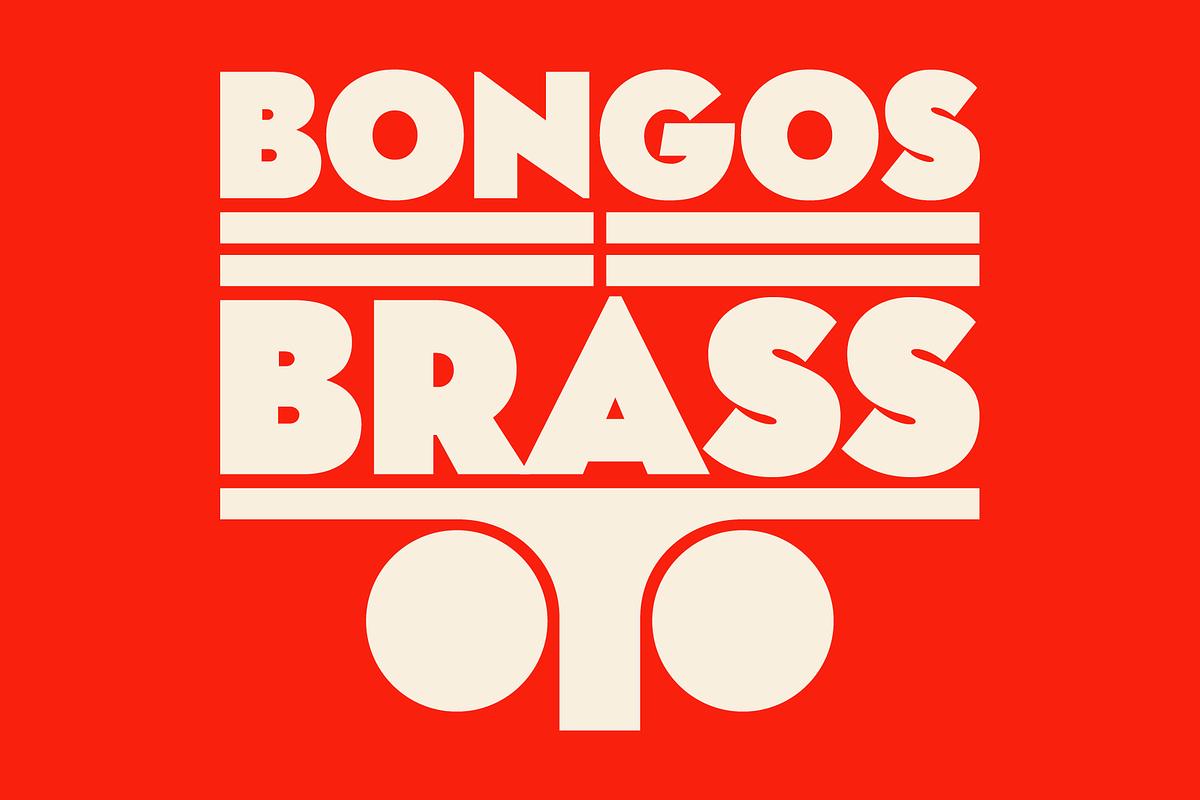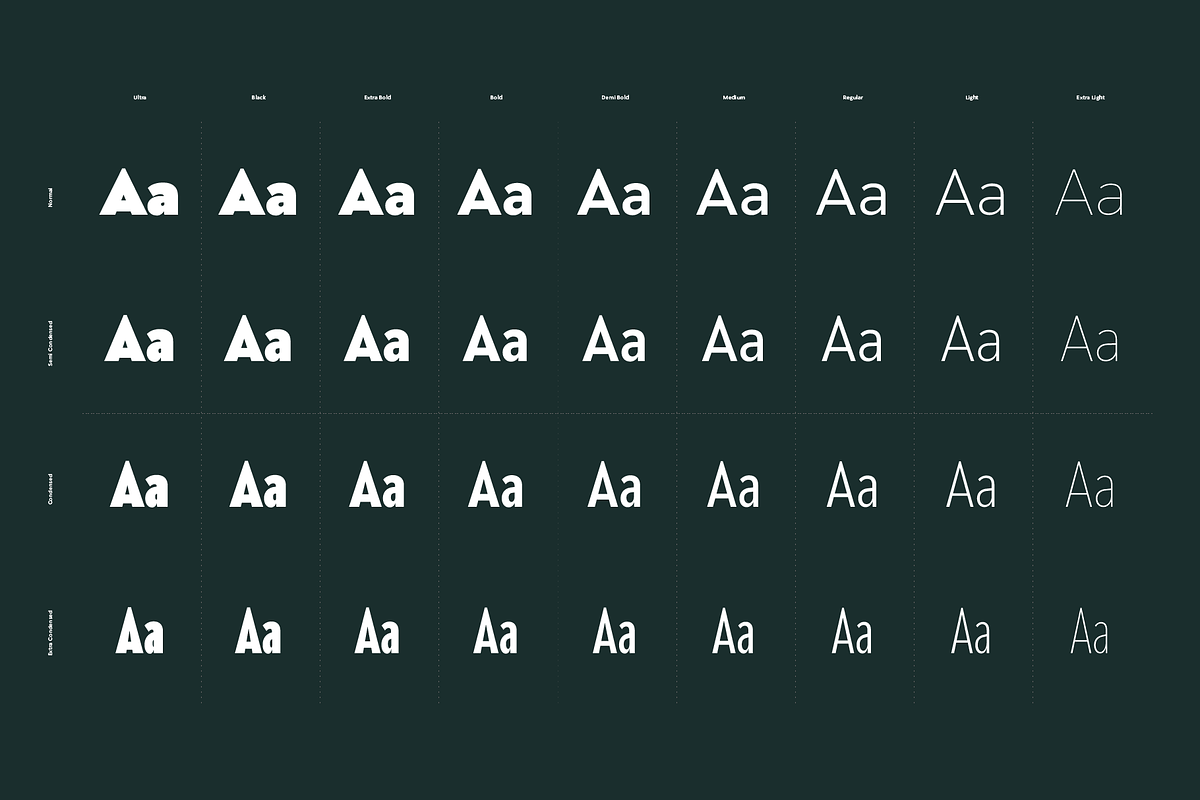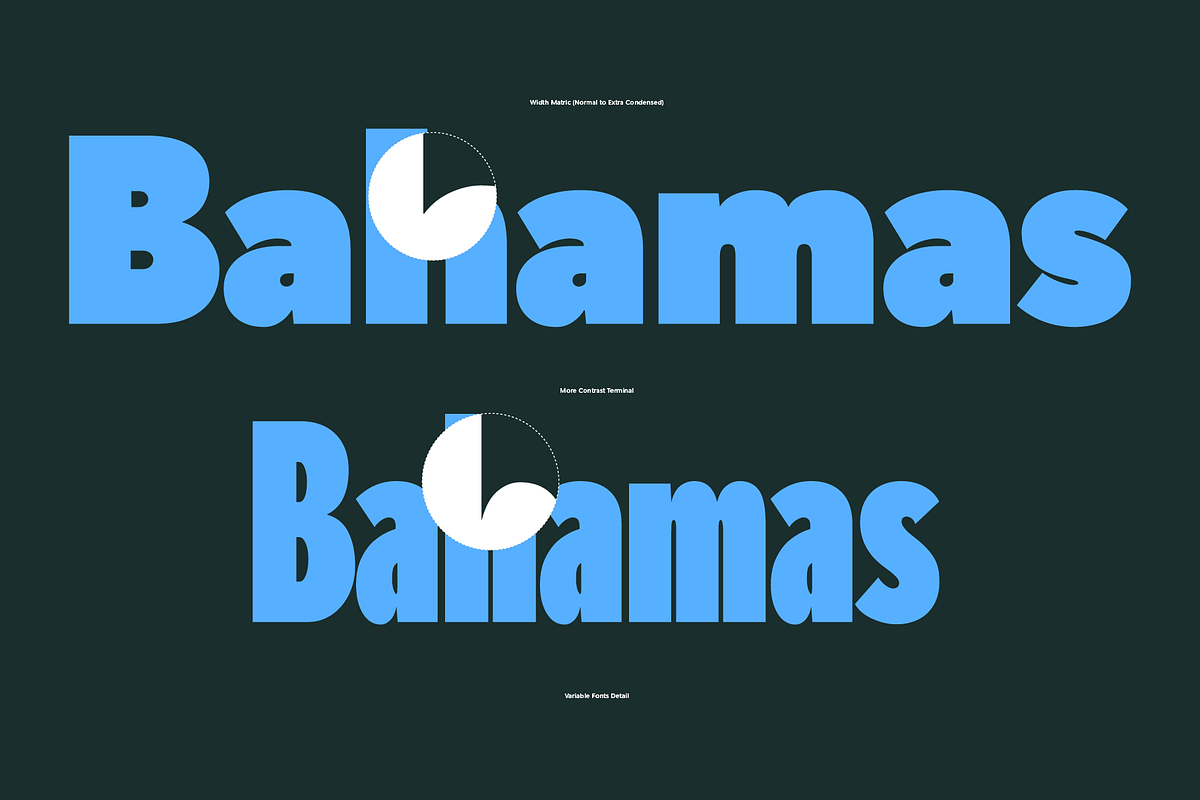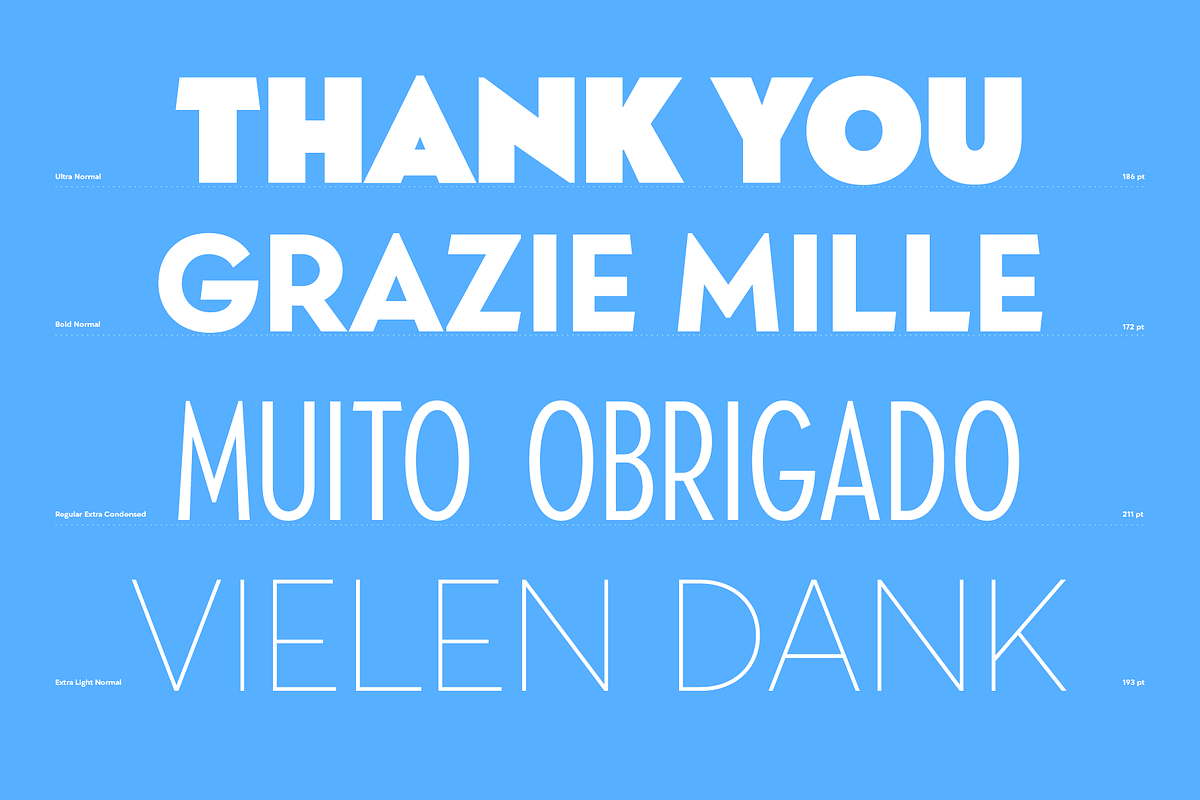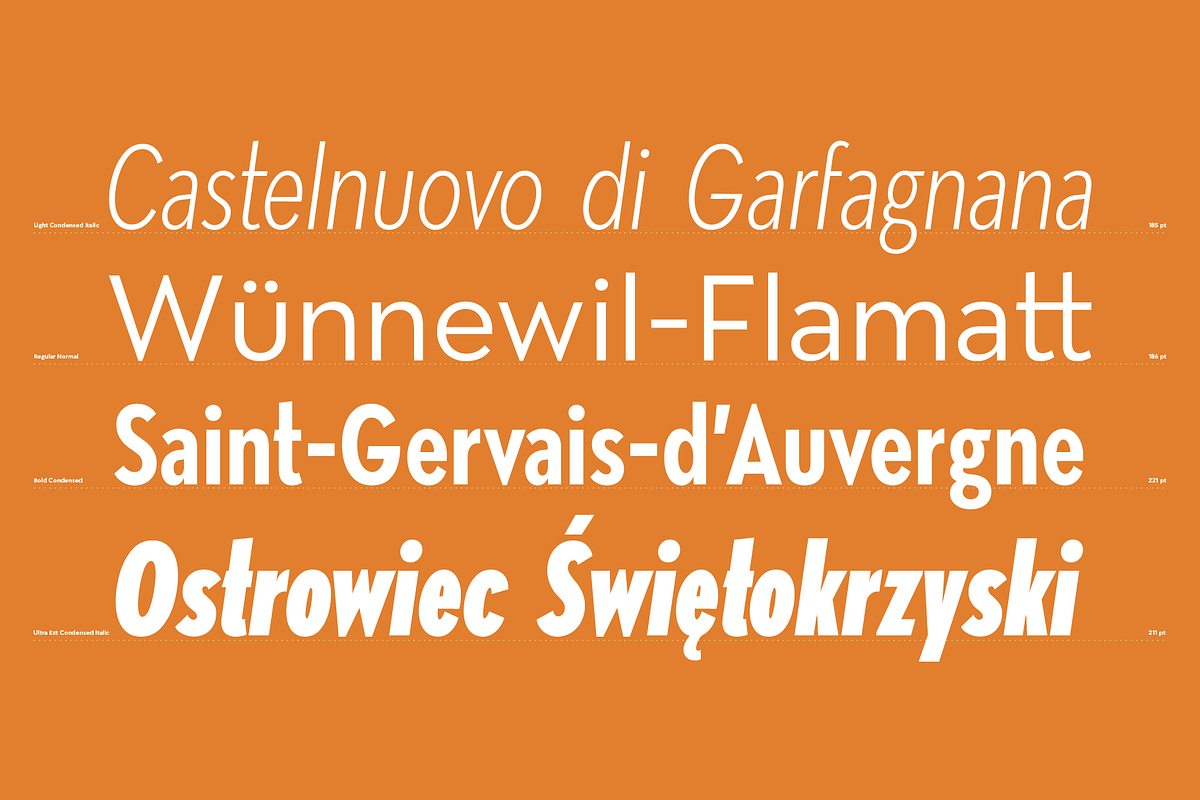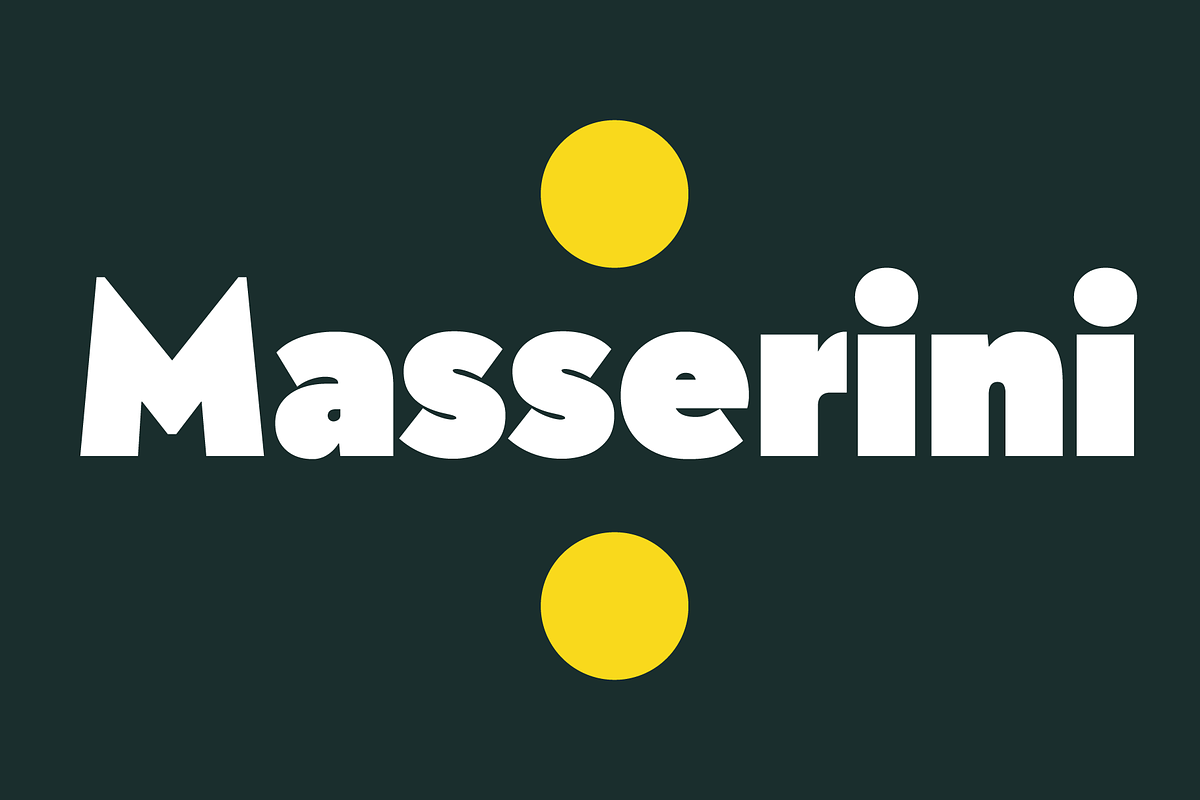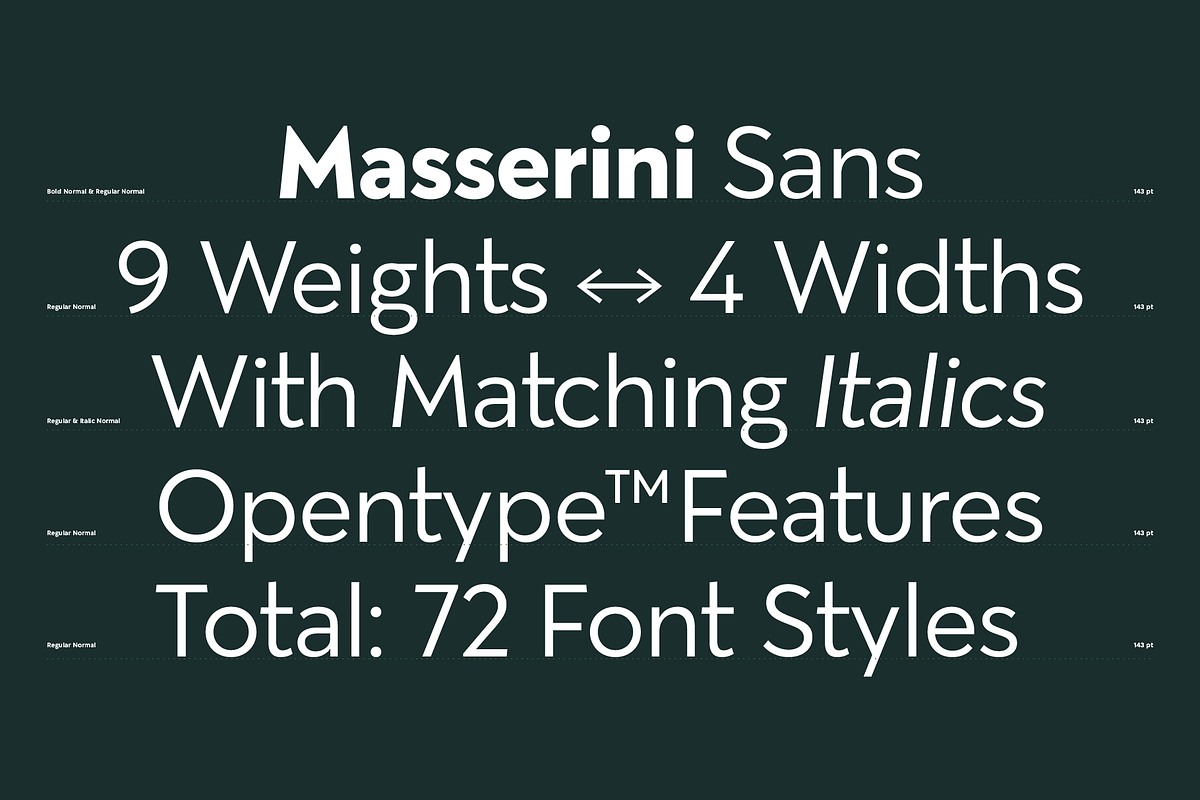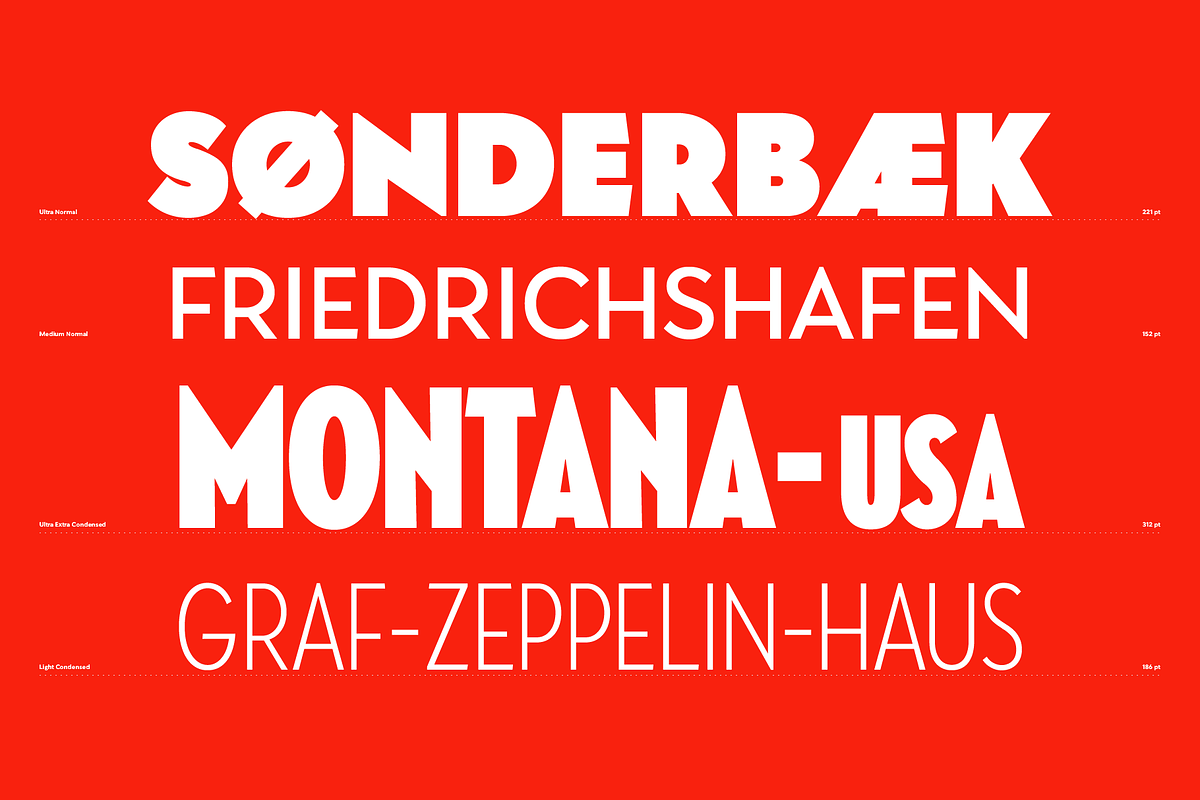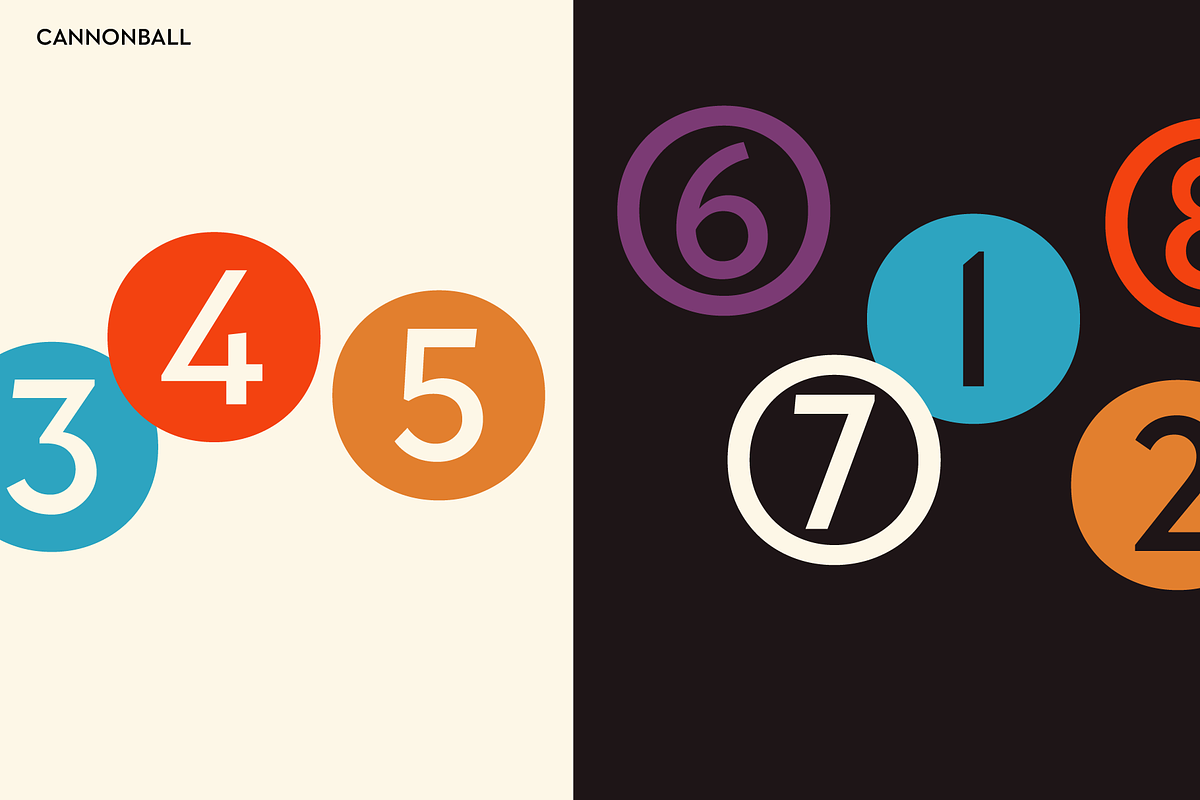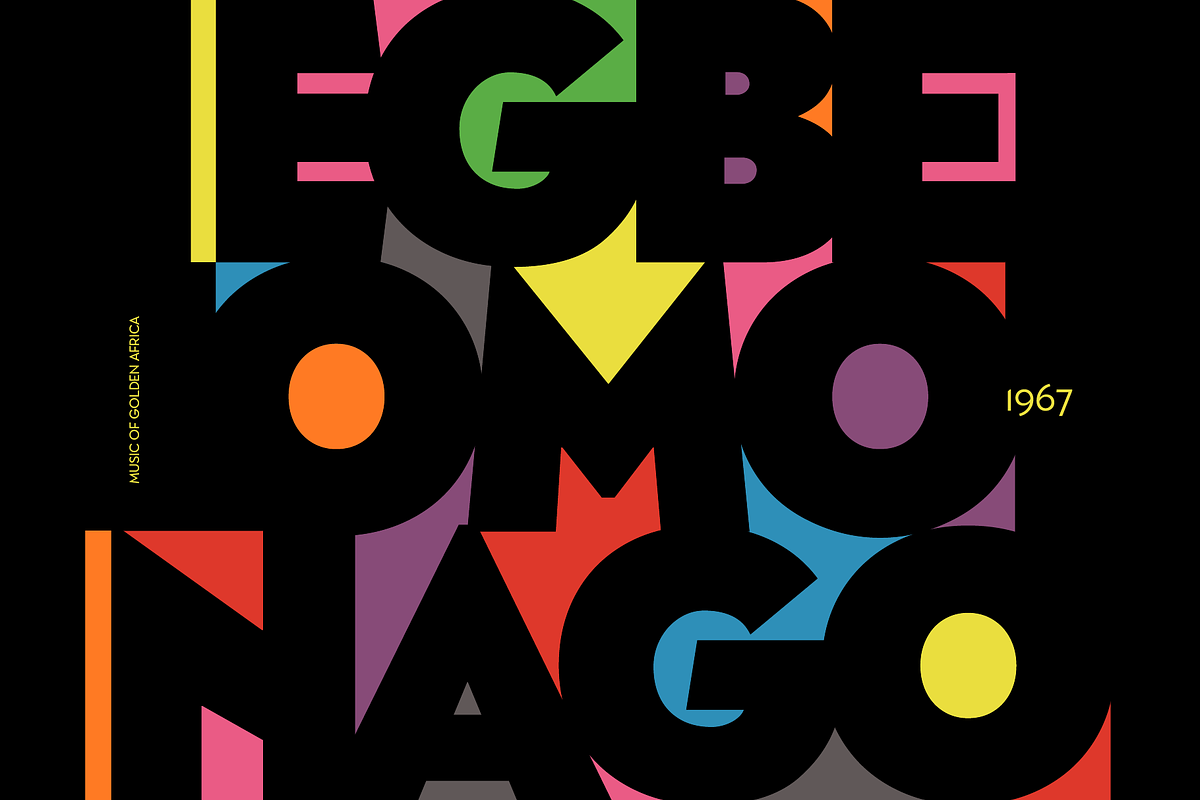
Masserini is inspired by the 20's art deco era of colorful posters, fonts, and typography with a vintage flair. With its strong geometric shapes and letters, like a style of sans serif that was used in signs and posters during that time period. This collection consists of a variety of widths, weights, and variants to suit your creative needs.
Available in 72 Style (4 Widths; Normal, Semi Condensed, Extra Condensed)